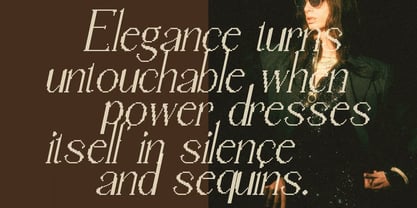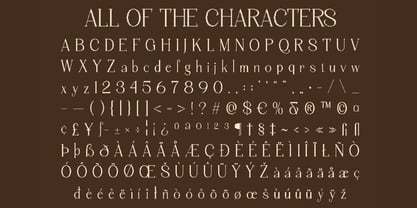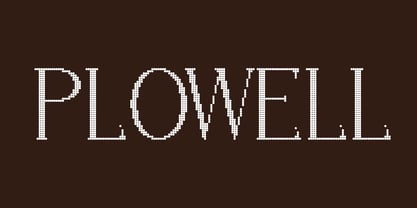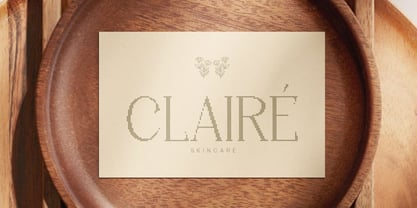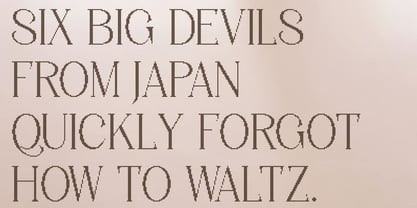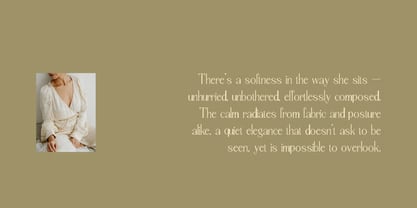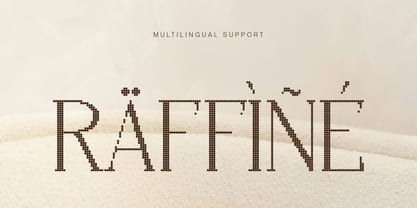
Plowell
by Hasnat Studio
The Plowell Font Family was designed by Hasnat Khan and published by Hasnat Studio. Plowell contains 1 styles. More about this family
Plowell is a modern serif font that radiates strength, sophistication, and clarity. With its clean structure, balanced proportions, and contemporary form, Plowell embodies confidence and refinement in equal measure. Designed to project a commanding yet elegant presence, this serif typeface is perfect for creatives seeking a design that feels both modern and timeless. ✦ A Spark of Glamour Plowell introduces a sparkling overlay effect that infuses each character with subtle vibrancy and charm. This shimmering touch transforms the traditional serif into a statement of creativity and style, adding a lively, glamorous twist to your visual compositions. It’s ideal for projects that need to shine with elegance, personality, and flair — from fashion campaigns to luxury branding. ✦ Perfect for Elegant and Expressive Branding With its balance of professional structure and artistic rhythm, Plowell adapts beautifully across headlines, logos, packaging, invitations, and editorials. Its crisp serif design ensures readability and authority, while the glimmering accent adds energy and modern appeal. Whether used for premium brands or creative visuals, it captures attention with grace and sophistication. ✦ Where Modern Strength Meets Glamour Plowell seamlessly fuses clarity with expression, making it a must-have for designers who value both precision and artistry. It delivers a polished yet dynamic presence, perfect for fashion branding, promotional posters, and stylish magazine layouts that demand a lasting impression. Font Features: Uppercase & Lowercase Characters, Numerals & Punctuation, Multilingual Support (Accents Included), PUA Encoded for Easy Access, Works Seamlessly on PC & Mac, No Specialized Software Required. Bring brilliance, confidence, and contemporary beauty to your typography with Plowell — a modern serif font where elegance meets expressive sparkle.
Designers: Hasnat Khan